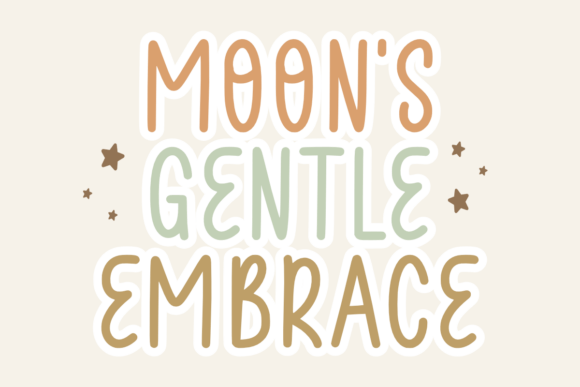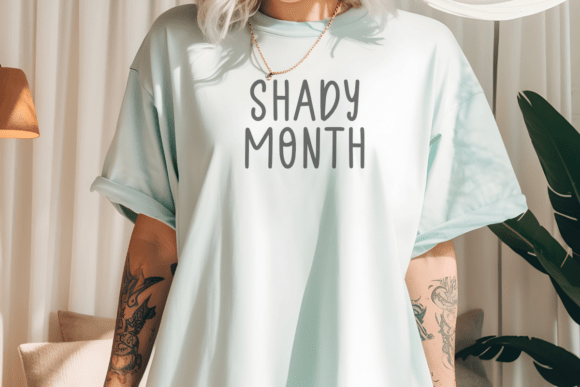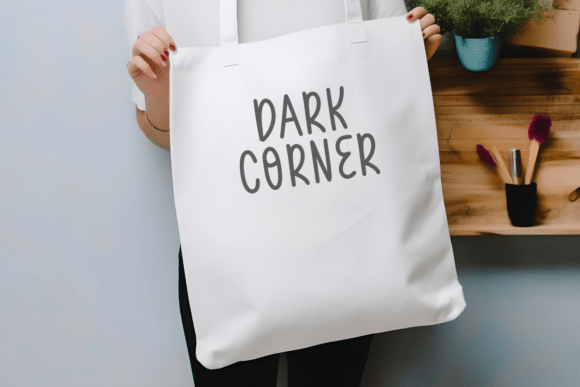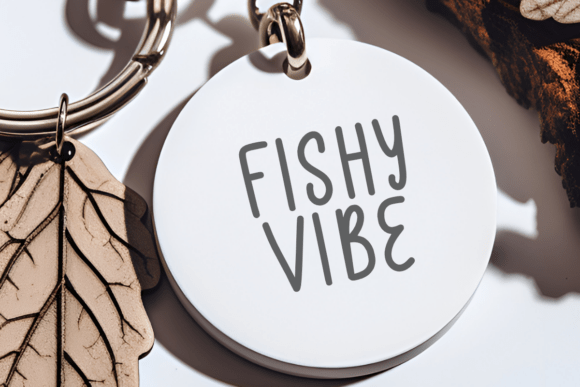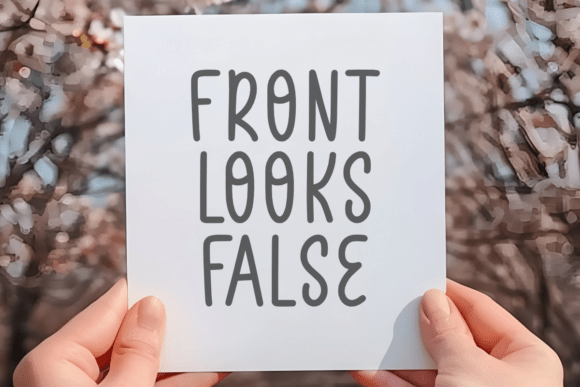
Introduction to Sketchy Month Font
Have you ever found yourself rummaging through your craft stash, searching for the perfect font to match your DIY project’s whimsical vibe? It’s a moment many creatives can relate to – the quest for that special something that brings your art to life. And for those who love journaling, Cricut crafts, and planners, the perfect font can be the difference between a mediocre project and a masterpiece.
Enter the Sketchy Month Font – a delightful handwriting font designed specifically for those who adore DIY, stickers, and quotes. This charming font is a must-have for any creative mom looking to elevate their craft game. With its free download and transparent background, it’s the perfect design resource for any high-quality project. Whether you’re a seasoned designer or a crafty newcomer, the Sketchy Month Font is a valuable addition to your creative arsenal.
Key Features of Sketchy Month Font
- Unique, hand-drawn style with a touch of imperfection, perfect for creative projects.
- Perfect for use in graphic design, digital art, and creative projects where a unique, sketchy feel is desired.
Honest Review: Sketchy Month Font
I recently stumbled upon the Sketchy Month Font while searching for a unique design resource for a creative project. As a designer, I appreciate discovering new fonts that can add an extra layer of personality to a design.
The Sketchy Month Font is available for free download, which is a definite plus. I downloaded the font and was impressed by its high quality and unique style. The font has a fun, handwritten feel that’s perfect for adding a touch of whimsy to a design.
Here are some things that work well with the Sketchy Month Font:
- ✨ Unique and creative style that’s perfect for adding personality to a design
- ✨ High-quality font that’s suitable for a variety of design projects
- ⚠️ The font only comes in a transparent background version, which may not be suitable for all design projects
- ⚠️ The font may not be suitable for large blocks of text, as it can be difficult to read in certain situations
Overall, I’m impressed with the Sketchy Month Font and would definitely recommend it to designers looking for a unique and creative font for their next project.
Common Use Cases for Sketchy Month Font
The Sketchy Month Font is perfect for a variety of creative projects, including infographics, posters, and social media graphics. It’s also great for creating titles and headings in presentations, documents, and websites. With its unique and stylish design, the Sketchy Month Font is a must-have design resource for any creative project.